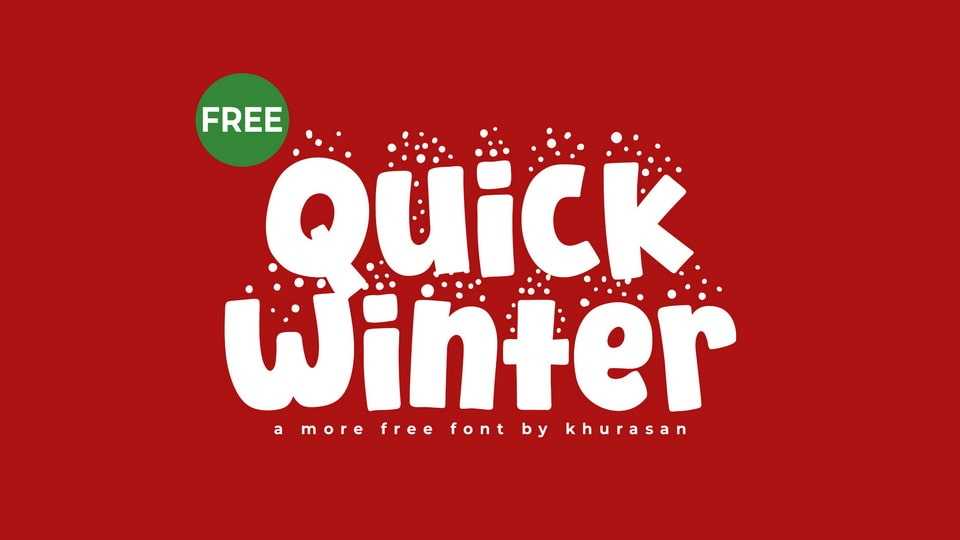
Download Quick Winter font, a cheerful, festive display typeface designed to capture the cozy magic of the holiday season. Its rounded, friendly letterforms are sprinkled with playful snow-like dots.